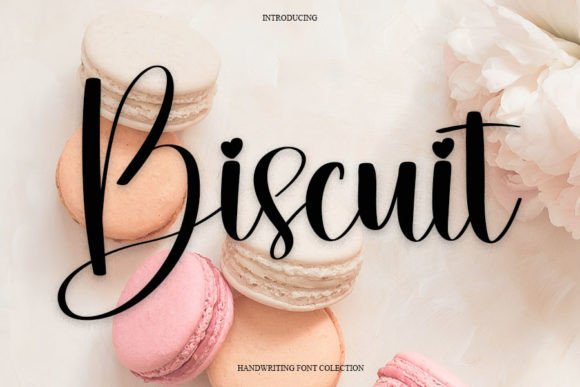
The Biscuit Font: A Deliciously Fun Addition to Your Design Toolbox
I’ll never forget the time I was working on a project for a client’s birthday card. I had all the design elements in place – the colors, the graphics, the overall aesthetic – but something was missing. It wasn’t until I stumbled upon the Biscuit font that the entire design came together. The fun, friendly, and playful vibe of this handwritten font instantly elevated the project and made it exactly what my client was looking for.
As I started exploring the Biscuit font further, I realized that it’s more than just a one-trick pony. Whether you’re a designer, crafter, or creative hobbyist, this font has the potential to become your go-to for a wide range of projects. From digital designs and presentations to crafts and greeting cards, Biscuit is a versatile font that can add a touch of personality to any design.
What I Love About Biscuit ✨
- ✅ Fun and friendly vibe: Biscuit has a playful, approachable feel that’s perfect for designs that need a bit of personality.
- ✅ Highly legible: Despite its handwritten nature, Biscuit is surprisingly easy to read, even at smaller font sizes.
- ✅ Versatile: This font can be used for a wide range of projects, from digital designs to crafts and presentations.
- ✅ OpenType features: Biscuit supports OpenType features, including glyphs and stylistic alternates, which can add an extra layer of creativity to your designs.
- ⚠️ Limited use in formal designs: While Biscuit is perfect for fun and playful designs, it may not be the best choice for more formal projects or designs that require a high level of professionalism.
- ⚠️ Some letters may require adjustment: As with any handwritten font, some letters may require adjustment to get the spacing and kerning just right.
The Story Behind Biscuit: Designer Inspiration
The Biscuit font was designed by a talented typographer who wanted to create a fun, friendly font that’s perfect for everyday designs. Inspired by classic handwritten fonts and modern digital design trends, Biscuit is a unique and versatile font that’s sure to become a favorite in any design toolbox.
| Font Name | Biscuit Font |
| Author | Ganden Letter |
Q: What is the Biscuit font best used for?
A: The Biscuit font is best used for designs that need a fun, friendly, and playful vibe. It’s perfect for crafts, digital designs, presentations, and greeting cards.